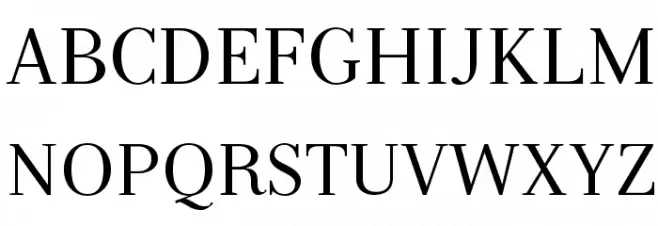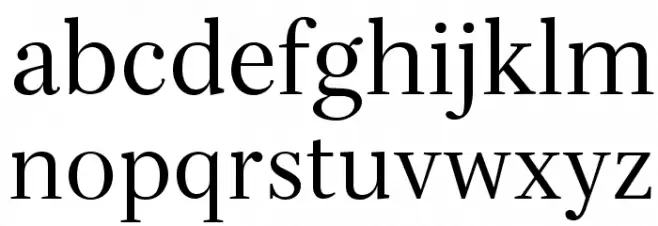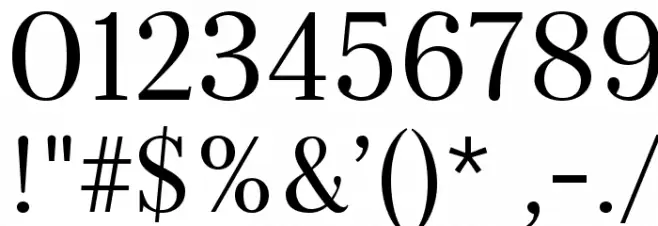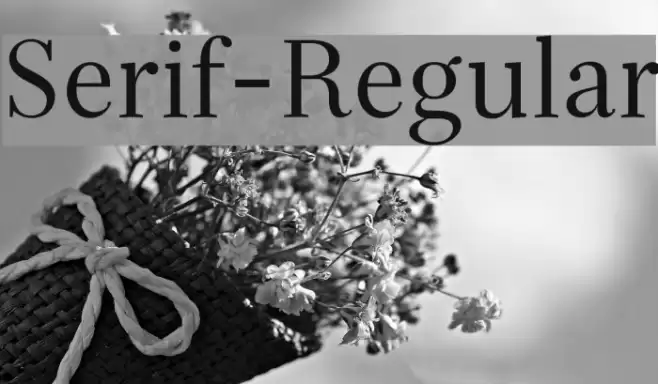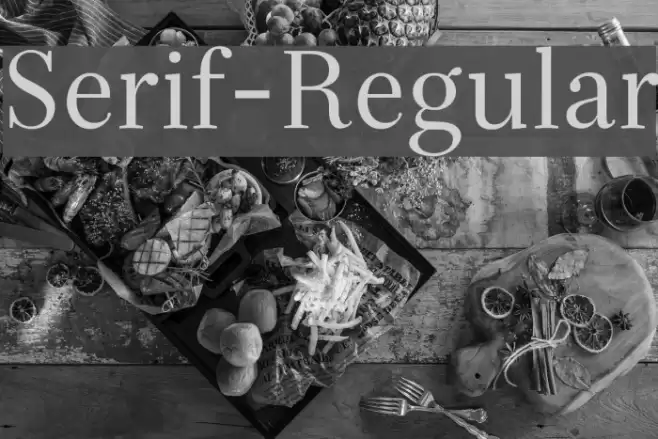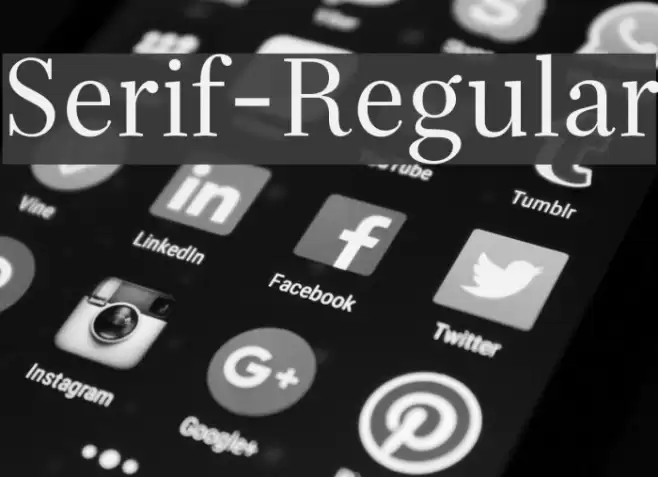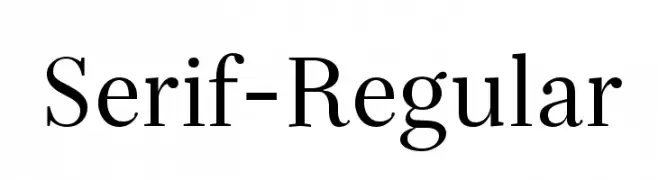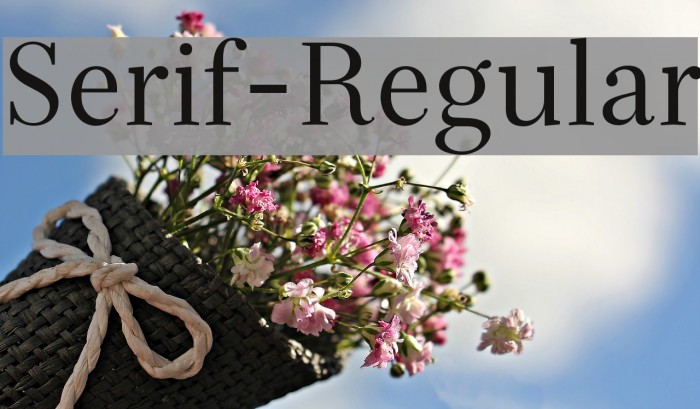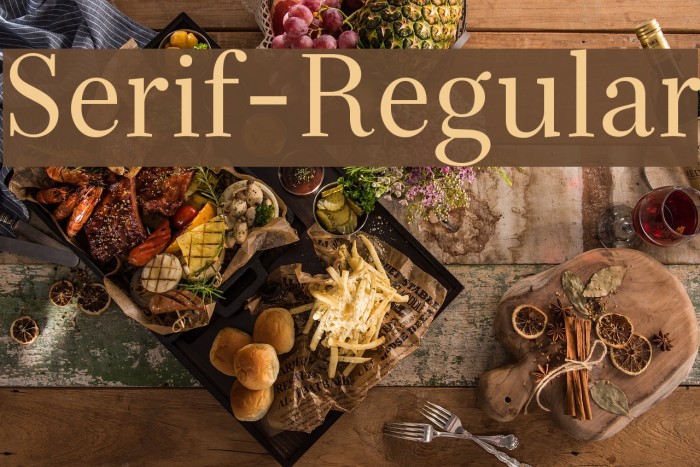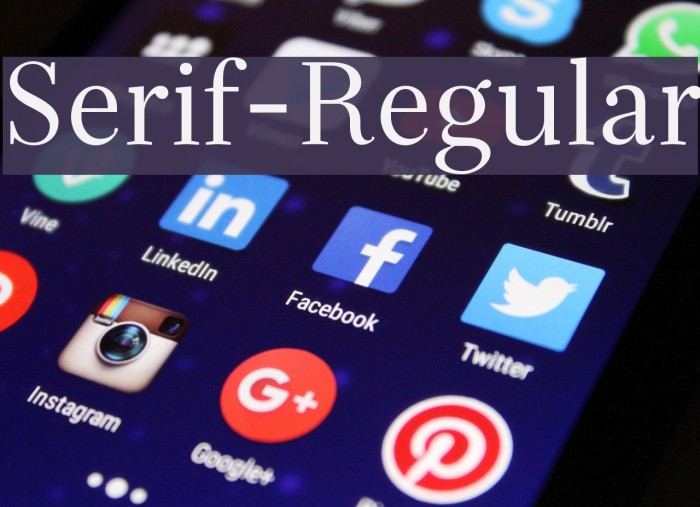
Serif-Regular
This font is a classic serif typeface characterized by its elegant and timeless design. The letters feature distinct serifs that add a touch of sophistication and readability, making it suitable for both print and digital media. The uppercase letters are well-proportioned, with a slight contrast between thick and thin strokes, enhancing the overall aesthetic appeal. The lowercase letters maintain a consistent style, providing a harmonious flow in text. The numerals are clear and legible, with a traditional appearance that complements the alphabetic characters. Special characters are included, offering versatility for various applications.
A classic serif typeface with elegant serifs and balanced proportions.
- Proposed Projects: Ideal for editorial design, book covers, formal invitations, and branding materials.
- Category: Serif
- Overall Style: Classic